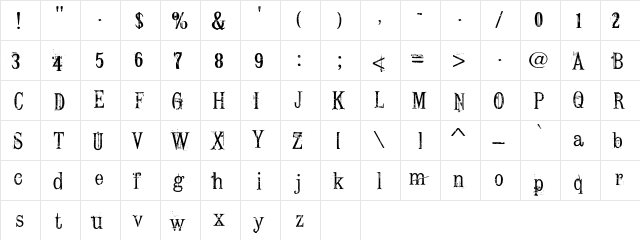
Conrad Veidt Regular
| Foundry | Bumbayo |
Design Context for Conrad Veidt Typeface
Conrad Veidt is a composed and adaptable typeface that performs quietly and consistently across a wide range of design contexts.